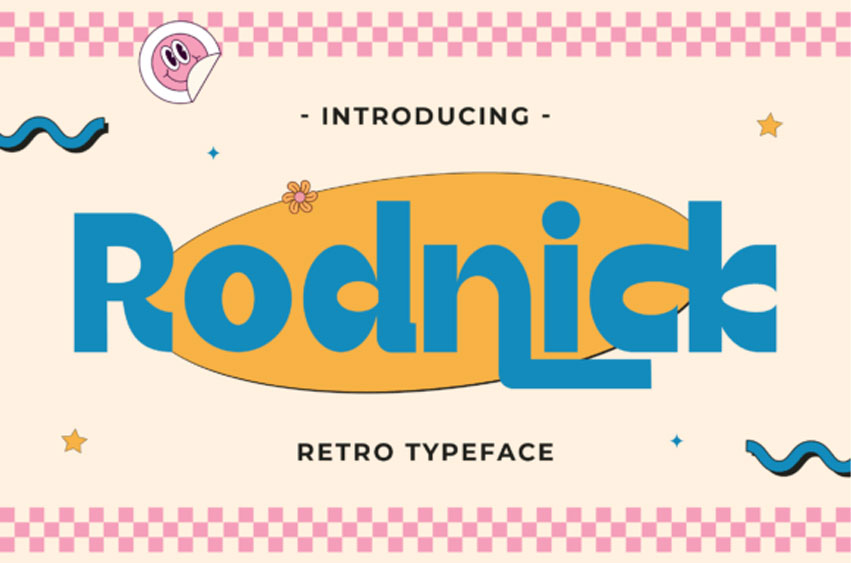
Rodnick Font
Rodnick Font is a bold, bubbly, and beautifully groovy retro display font that’s ready to transport your designs straight to the swinging ’60s and ’70s. With its smooth curves, soft rounded edges, and substantial weight, Rodnick embodies that unmistakable vintage flair, making it perfect for designers looking to inject a playful and nostalgic spirit into their work.
This typeface isn’t just a nod to the past—it’s built for modern digital design. Its charming, eye-catching style is ideal for headlines, titles, and short, impactful branding that needs to stand out.